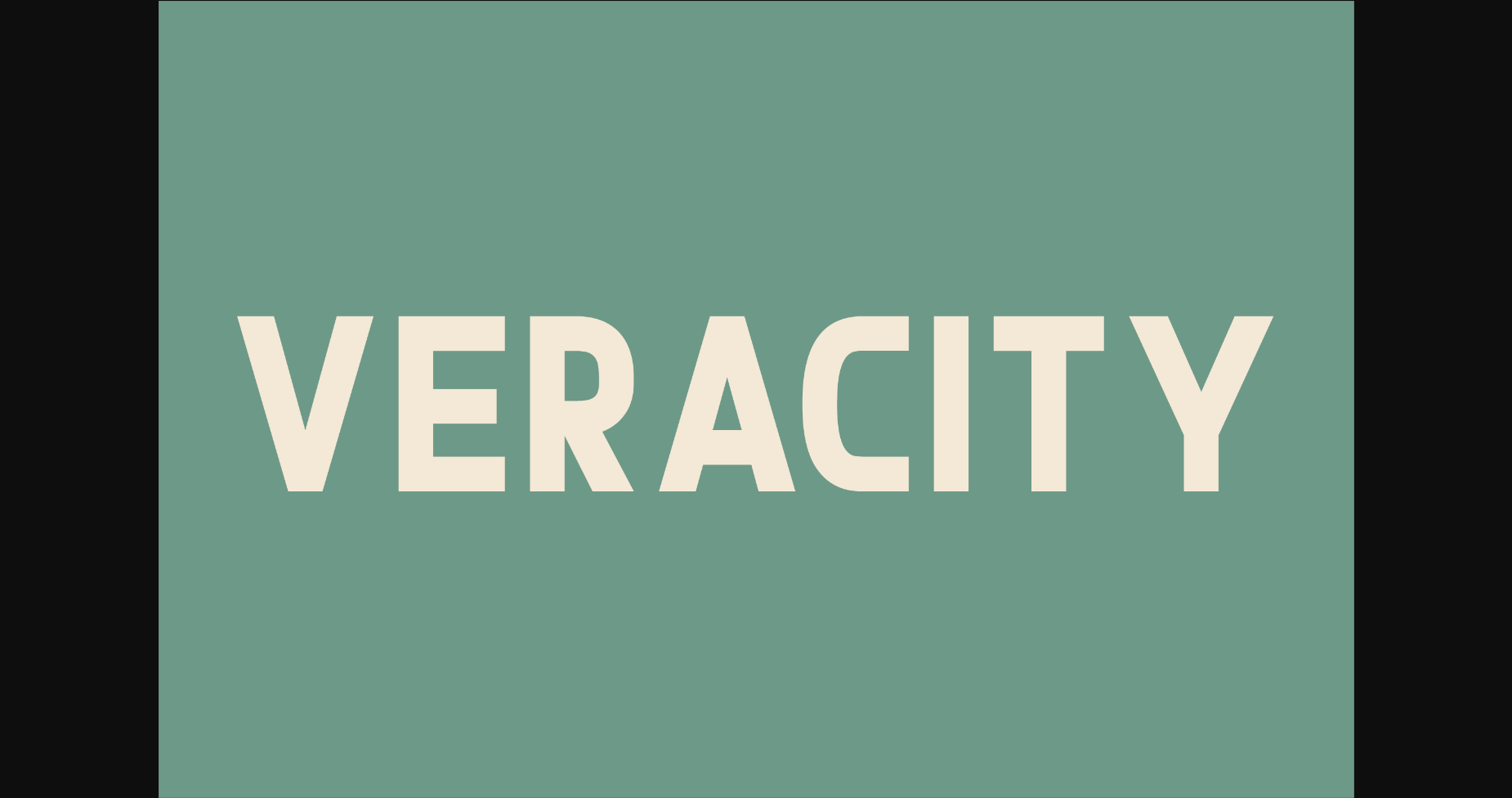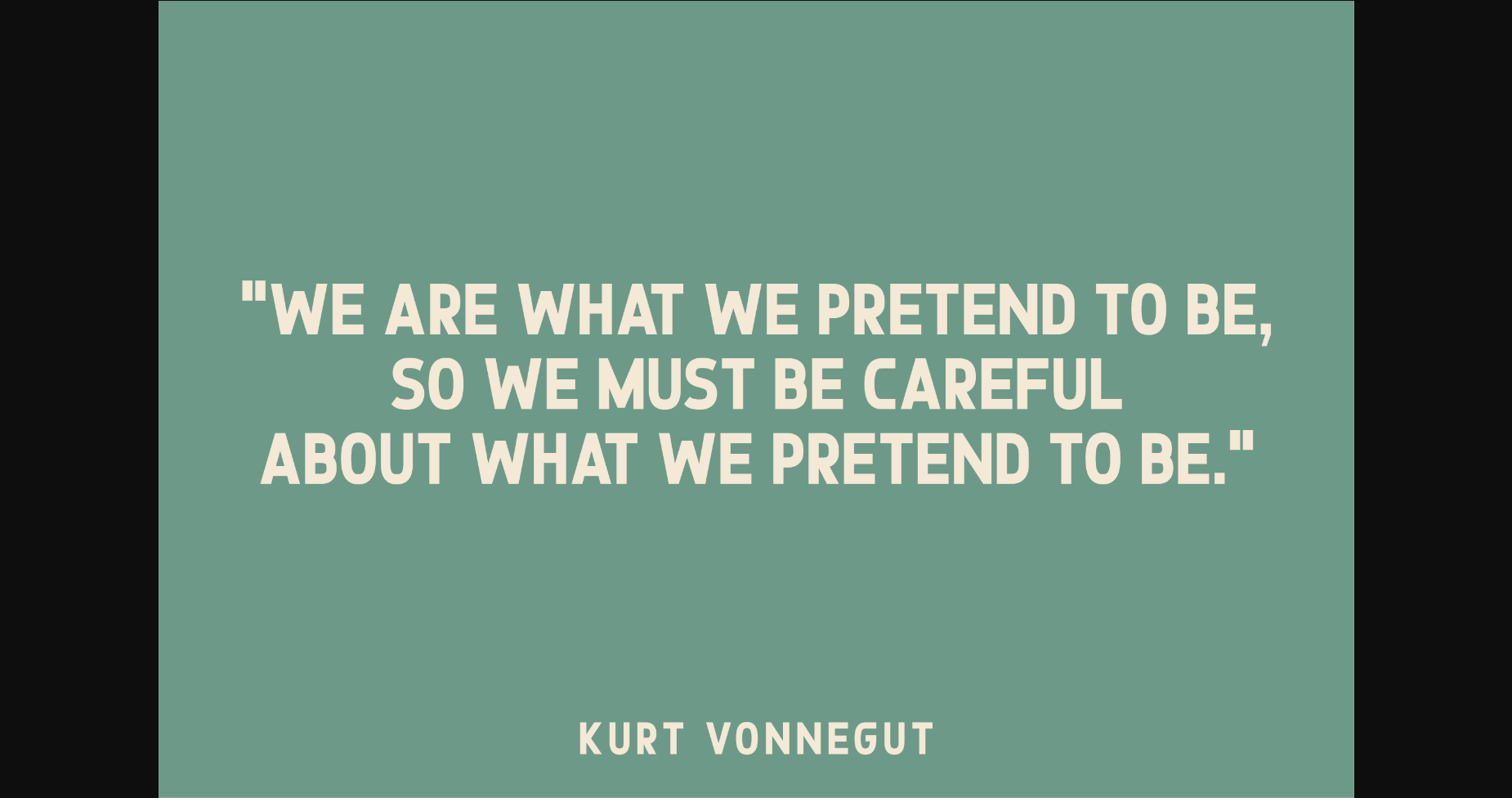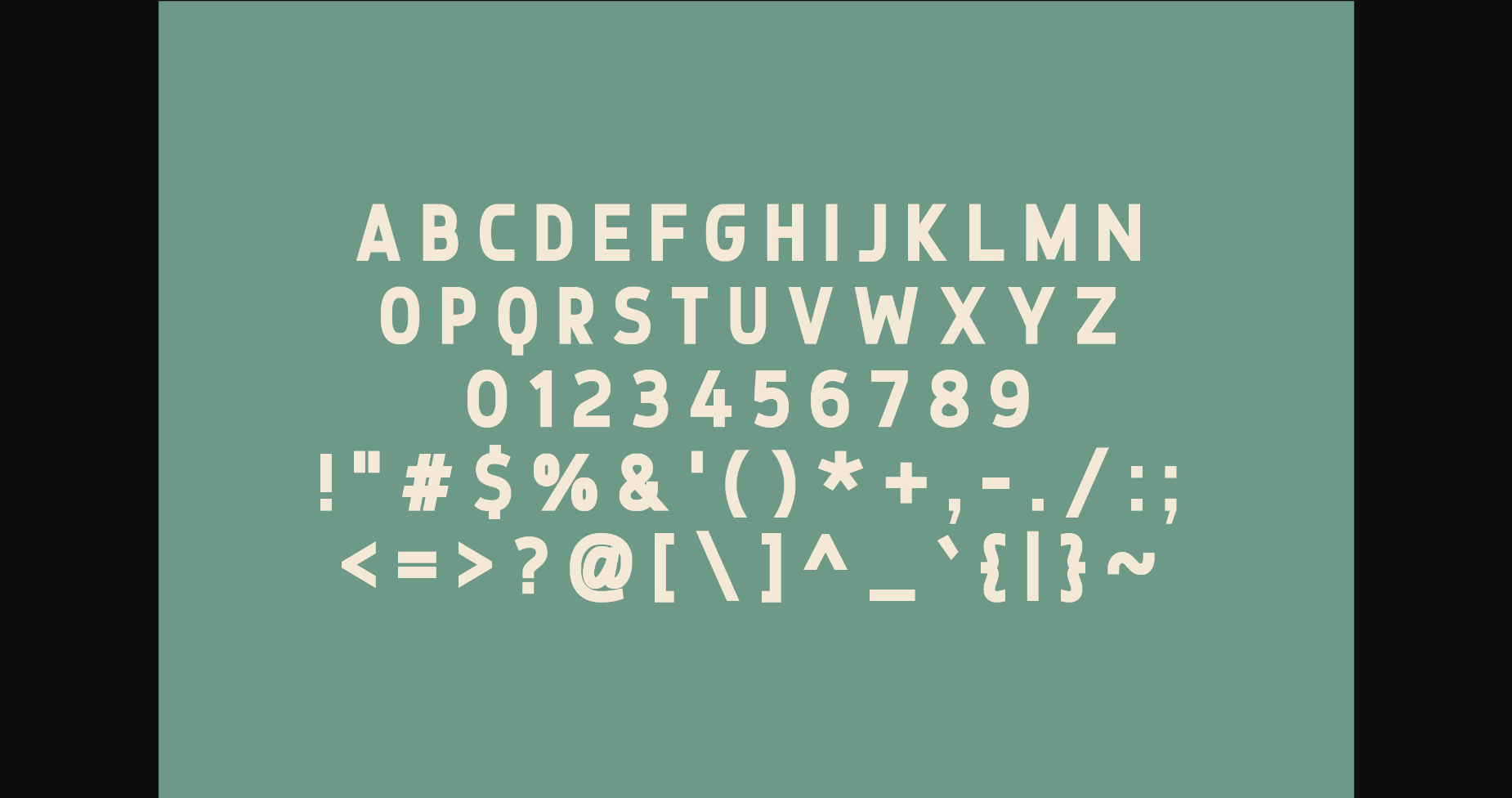
About Veracity Font
Veracity is a versatile, modern, and classy sans serif font perfect for logos, weddings, invitations, quotes, advertisements, print, magazines, and more. Add it to your most creative ideas, and notice how it makes them come alive!